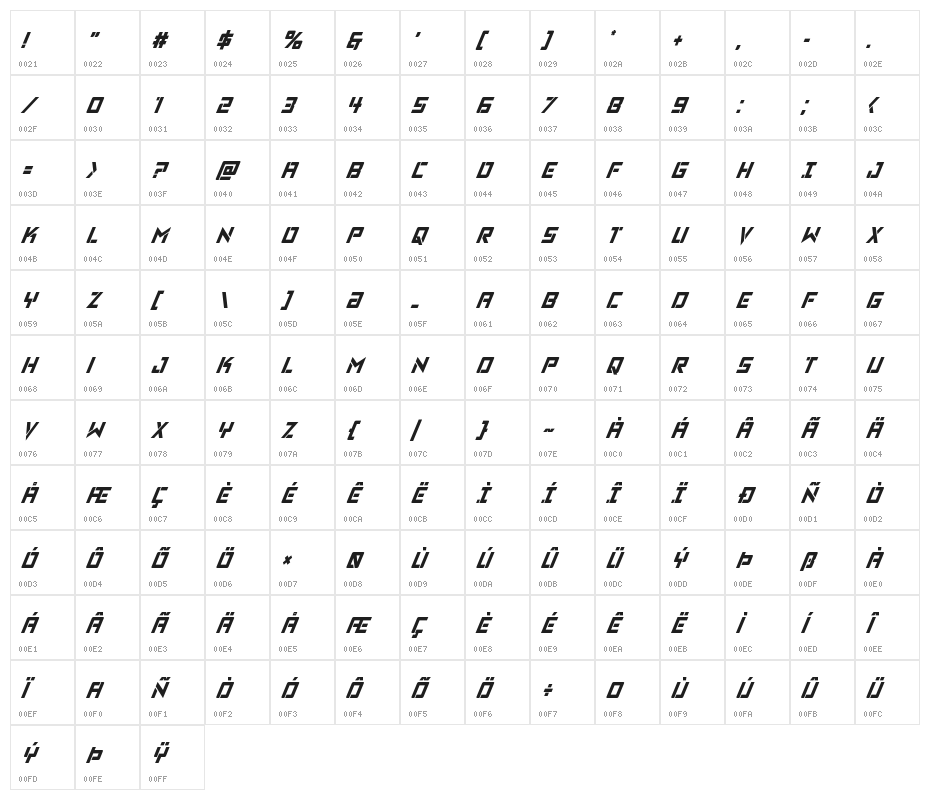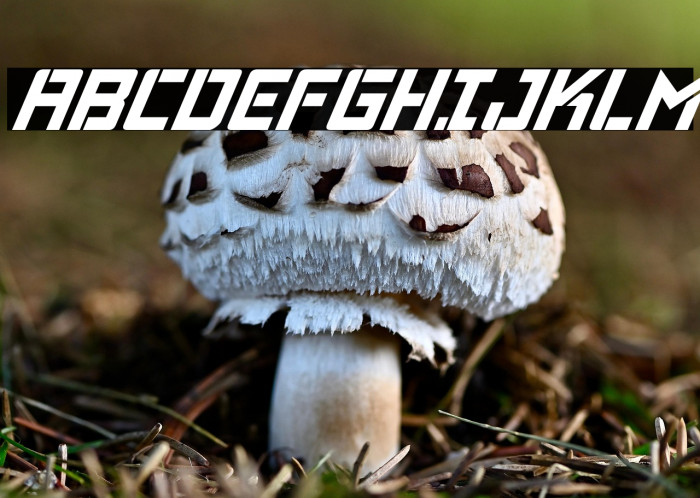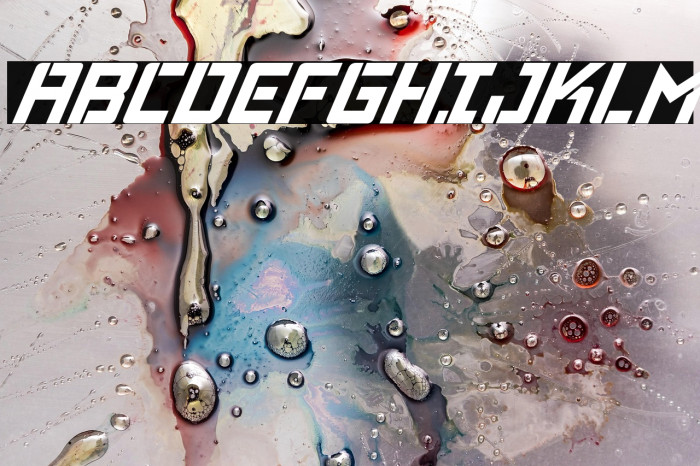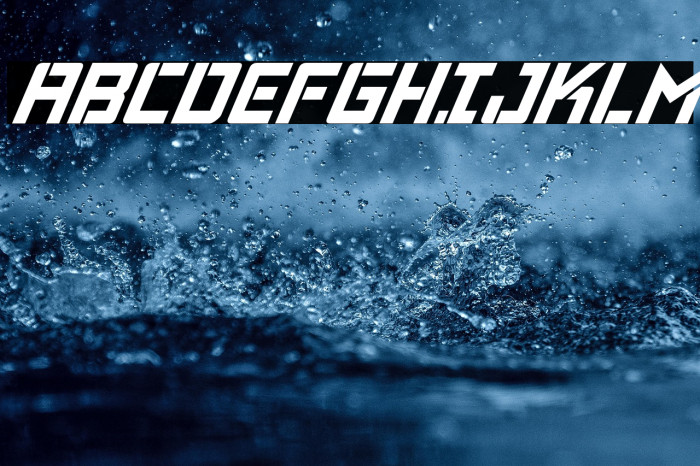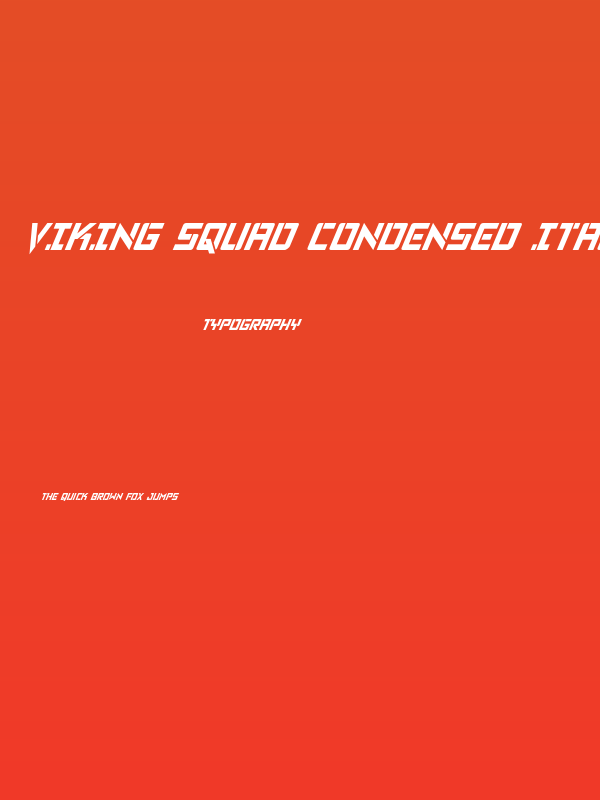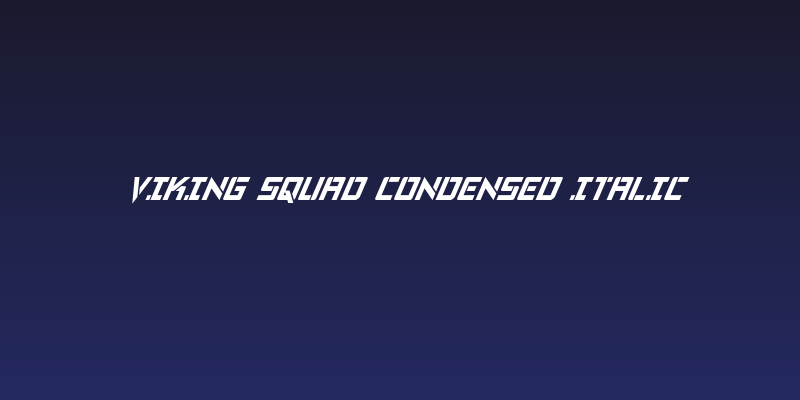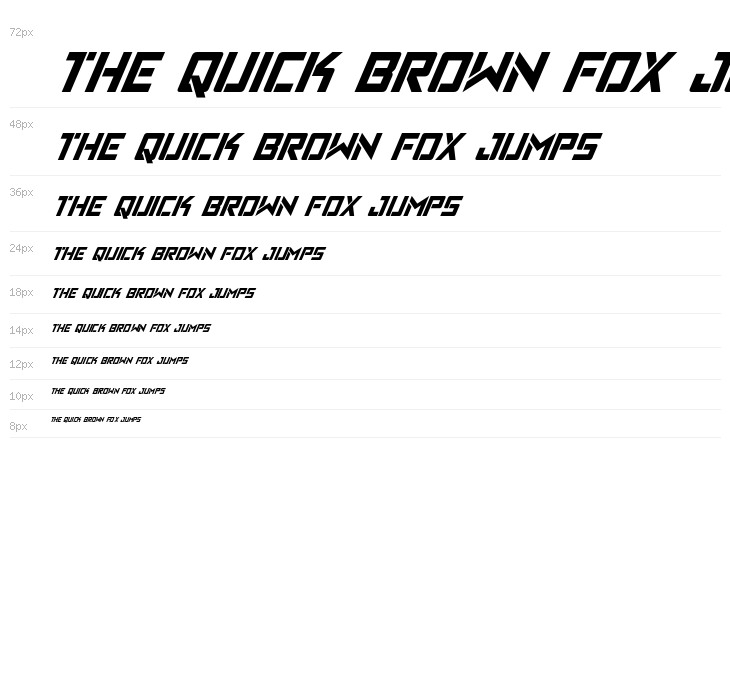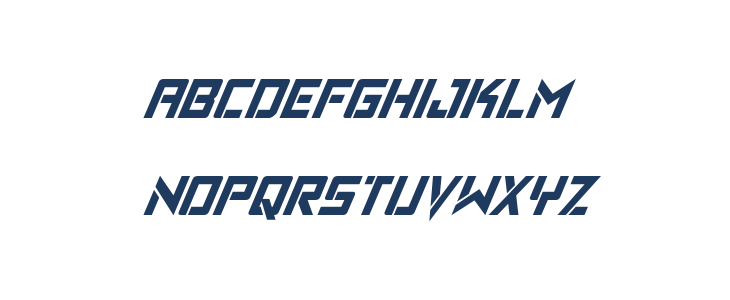
Viking Squad Condensed Italic Font
Viking Squad Condensed Italic Description
This font features a bold and dynamic design with a futuristic and angular style. The characters are sharply cut with a forward-leaning italic slant, giving a sense of motion and energy. The condensed width allows for efficient use of space, making it suitable for impactful headlines and titles. The uppercase letters are particularly striking, with a geometric and edgy appearance that commands attention. The numbers and special characters maintain the same bold and angular aesthetic, ensuring consistency across all elements.
| Proposed Projects | Ideal for use in video game titles, sports branding, tech-related projects, and dynamic posters. |